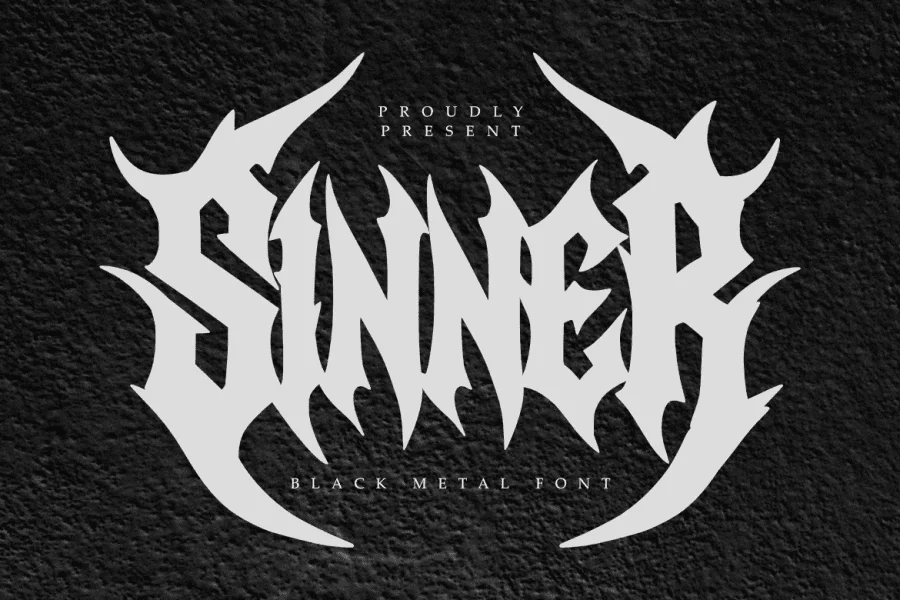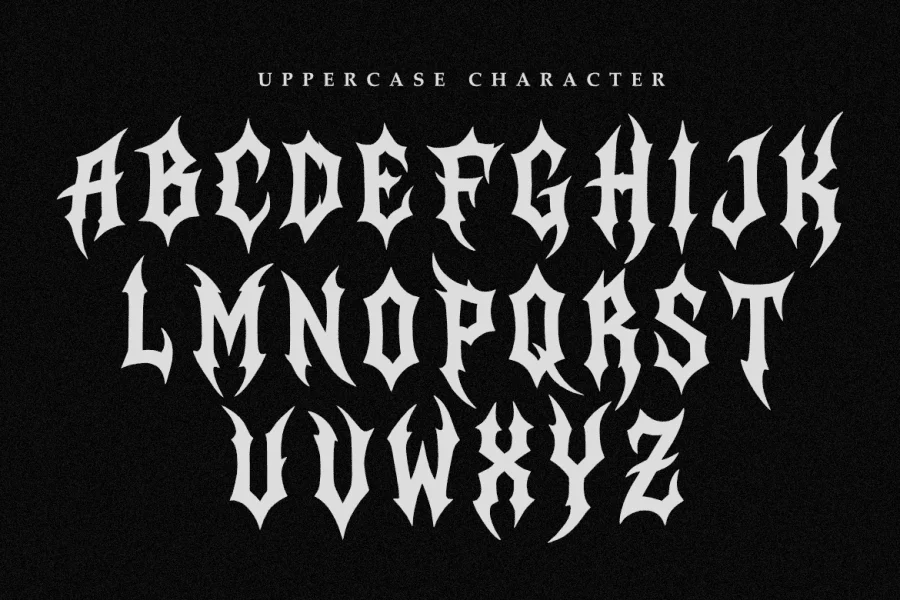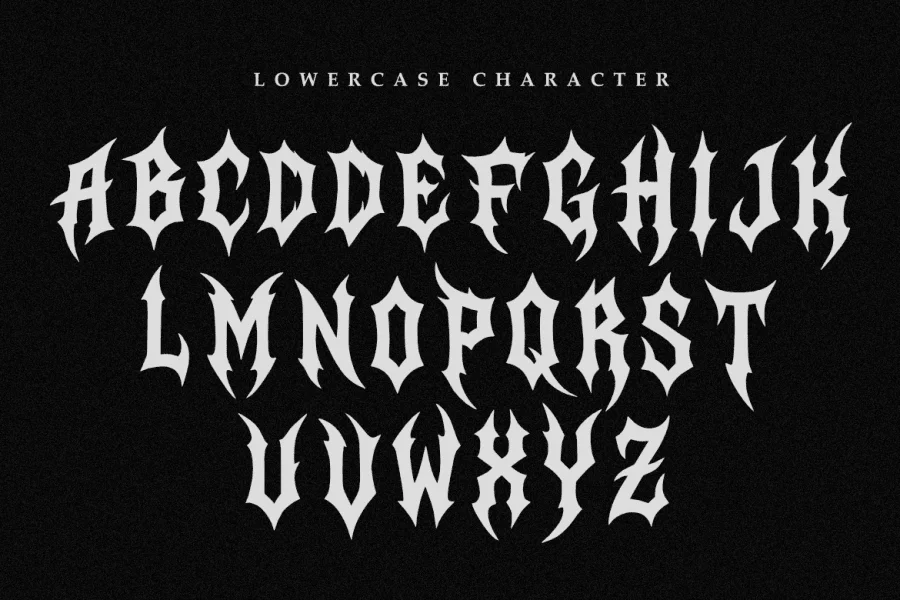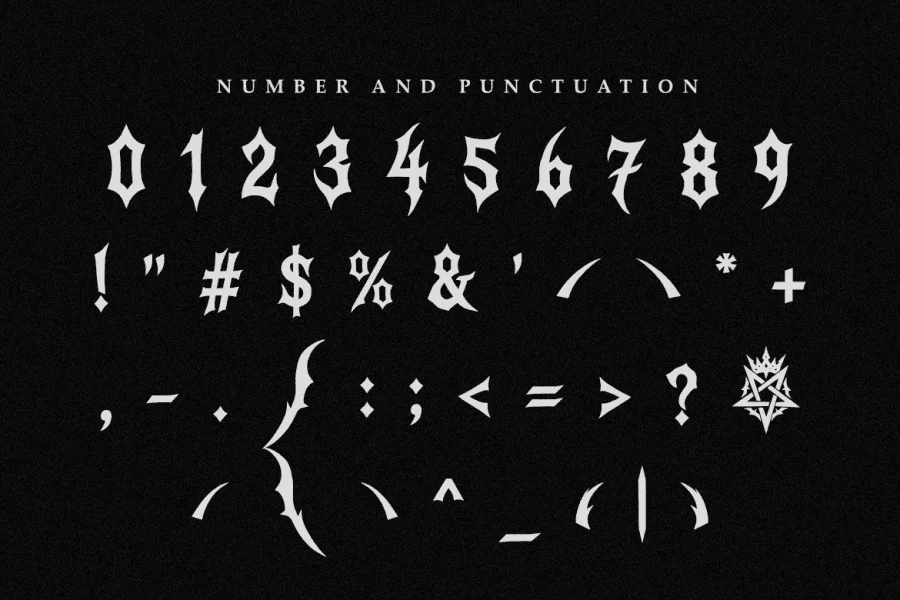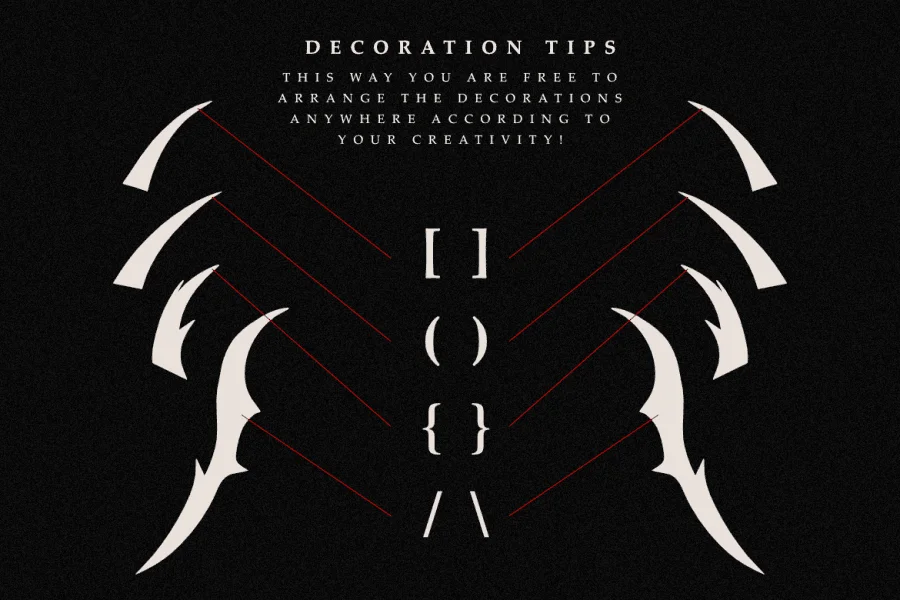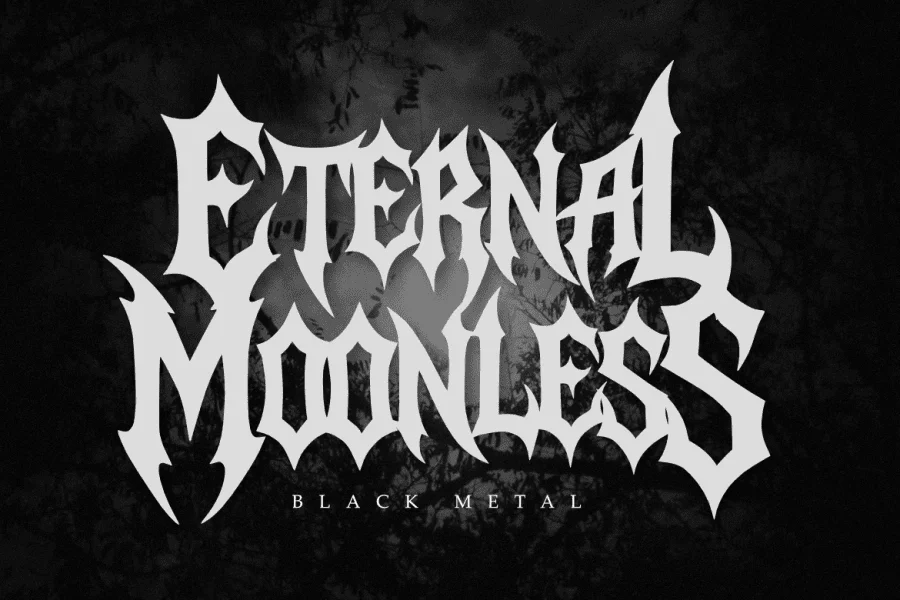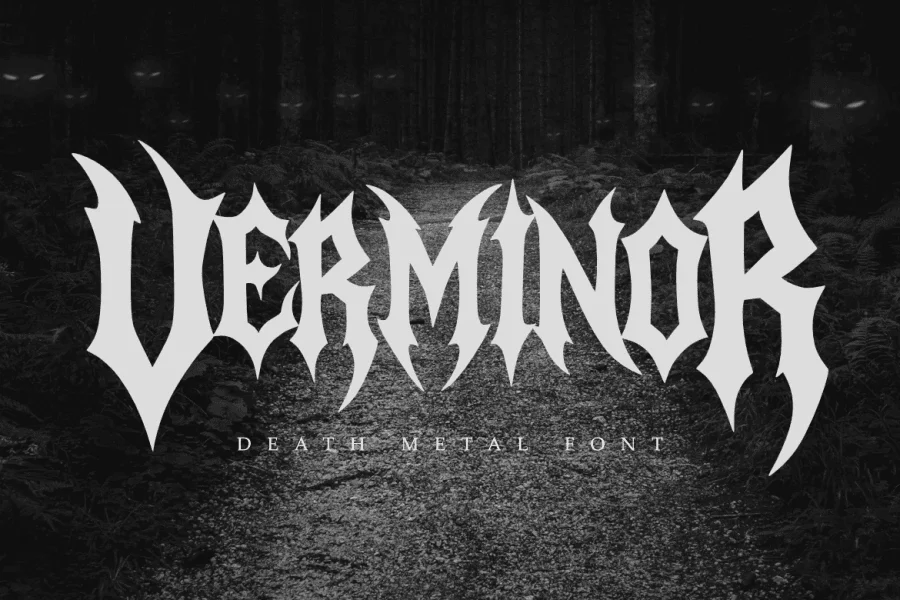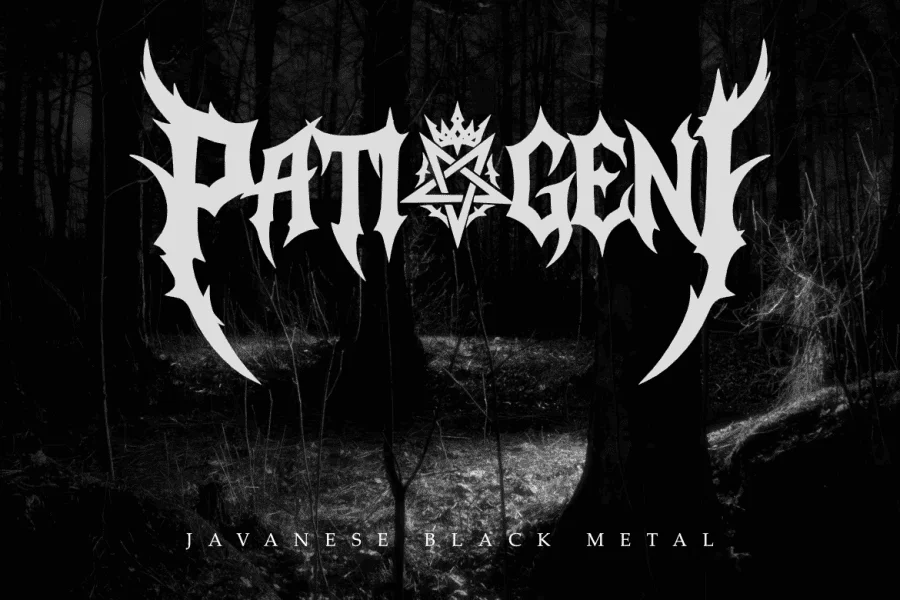
Frozen Sepulcher is a highly stylized, aggressive display typeface rooted in extreme music subcultures. Its anatomy is defined by a dense, architectural structure of sharp-edged, thorn-like spurs, and sweeping, claw-like terminals. The letterforms exhibit a medium-to-high contrast with robust vertical stems that abruptly taper into razor-thin, curved points. The overall rhythm is jagged and interlocking, with dramatic, sweeping descenders and ascenders that frame the text block, creating a dense and imposing visual texture.
This typeface is purpose-built for high-impact branding within the heavy metal, death metal, and black metal music scenes. It is exceptionally well-suited for band logos, album cover artwork, merchandise design, and concert poster headlines. The inclusion of modular decorative elements, such as curved thorns and framing accents, allows designers to construct customized, symmetric wordmarks that capture a raw, dark, and powerful aesthetic.